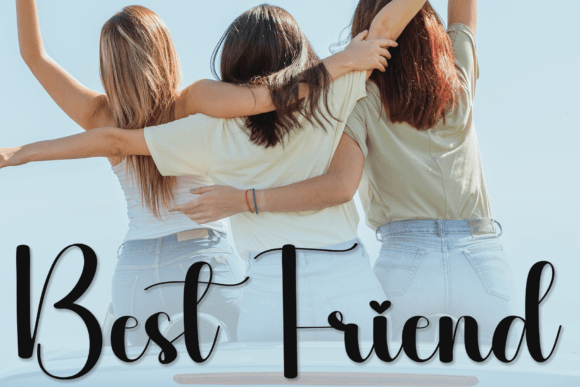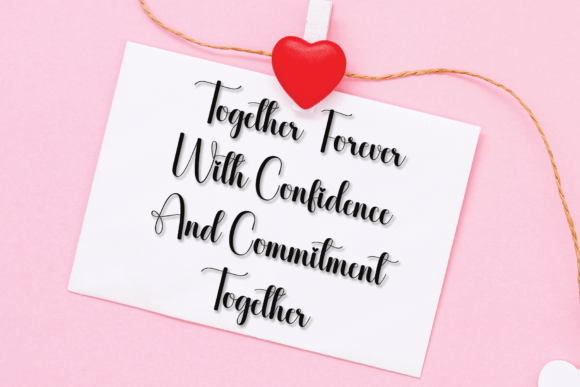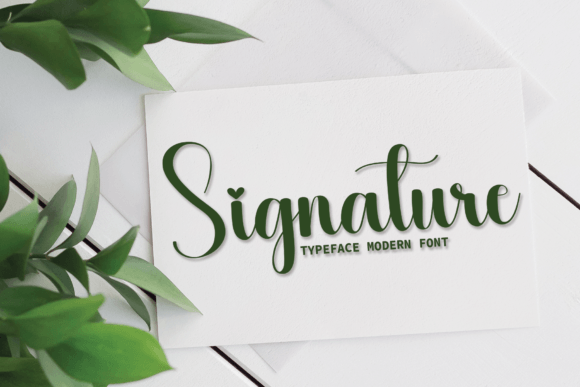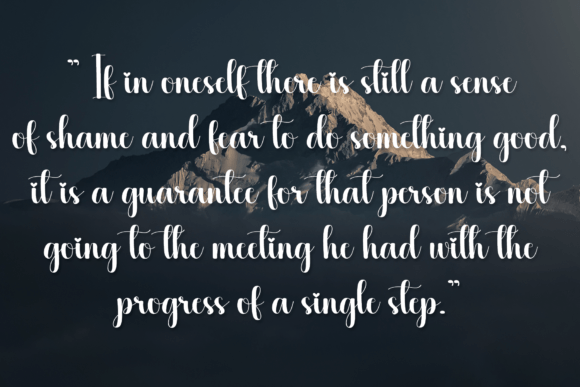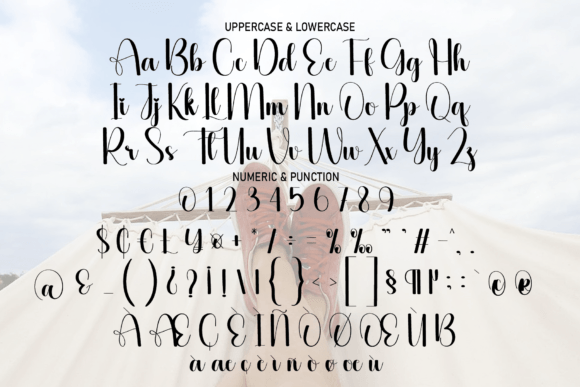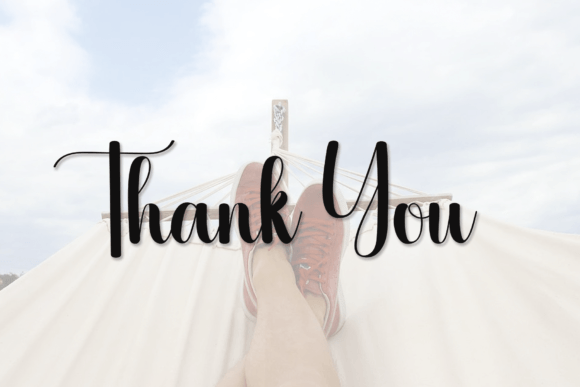
Discover the Elegance of Daydream Font: Elevate Your Designs with a Timeless Touch
Are you on the hunt for a font that exudes elegance and sophistication? Look no further than the Daydream Font, a stunning handwritten font that is sure to capture your heart. With its flowing lines and classic charm, this font is perfect for designers and crafters looking to add a touch of refinement to their projects.
The Distinctive Style of Daydream Font
Daydream Font is described by its elegant touch, which sets it apart from other fonts in its category. Its incredibly distinct and timeless style makes it an excellent choice for a wide range of design applications, from wedding invitations and branding materials to social media graphics and blog posts.
One of the standout features of Daydream Font is its flowing handwritten style, which gives it a sense of movement and fluidity. The font’s elegant lines and curves create a beautiful, organic feel that is sure to captivate your audience. Whether you’re looking to create a romantic and whimsical design or a sophisticated and professional one, Daydream Font is the perfect choice.
Why Choose Daydream Font?
So, what makes Daydream Font so special? Here are just a few reasons why designers and crafters are falling in love with this beautiful font:
- Elegant and Refined: Daydream Font boasts an elegant and refined style that is perfect for designs that require a touch of sophistication.
- Timeless Appeal: Unlike trendy fonts that quickly go out of style, Daydream Font has a timeless appeal that ensures your designs will remain stylish for years to come.
- Versatile: Daydream Font is incredibly versatile and can be used for a wide range of design applications, from digital projects to print materials.
- Easy to Read: Despite its elegant and flowing style, Daydream Font is easy to read, making it perfect for body text and other applications where legibility is key.
How to Use Daydream Font in Your Designs
Using Daydream Font in your designs is easy! Here are a few tips to get you started:
- Pair it with Bold Fonts: Daydream Font pairs beautifully with bold fonts, creating a striking contrast that adds visual interest to your designs.
- Use it for Headings and Titles: Daydream Font is perfect for headings and titles, where its elegant style can really shine.
- Add a Personal Touch: Daydream Font is also great for adding a personal touch to your designs, such as in quotes, testimonials, and other applications where a human touch is desired.
In conclusion, Daydream Font is a beautiful and elegant handwritten font that is perfect for designers and crafters looking to add a touch of sophistication to their projects. With its flowing lines, classic charm, and timeless appeal, this font is sure to capture your heart and elevate your designs to the next level. So why wait? Discover the elegance of Daydream Font today and start creating spectacular designs that will leave a lasting impression!